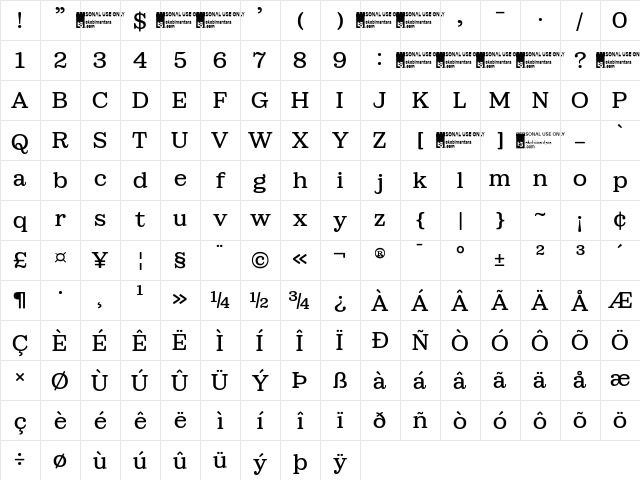
Sailer Trial Med Regular
Designer: Eko Bimantara
Design Context for Sailer Trial Med
Sailer Trial Med is a composed and adaptable typeface that performs quietly and consistently across a wide range of design contexts.
Pro Tip: Use Sailer Trial Med in both headline and body roles to test its range before committing to a single application.